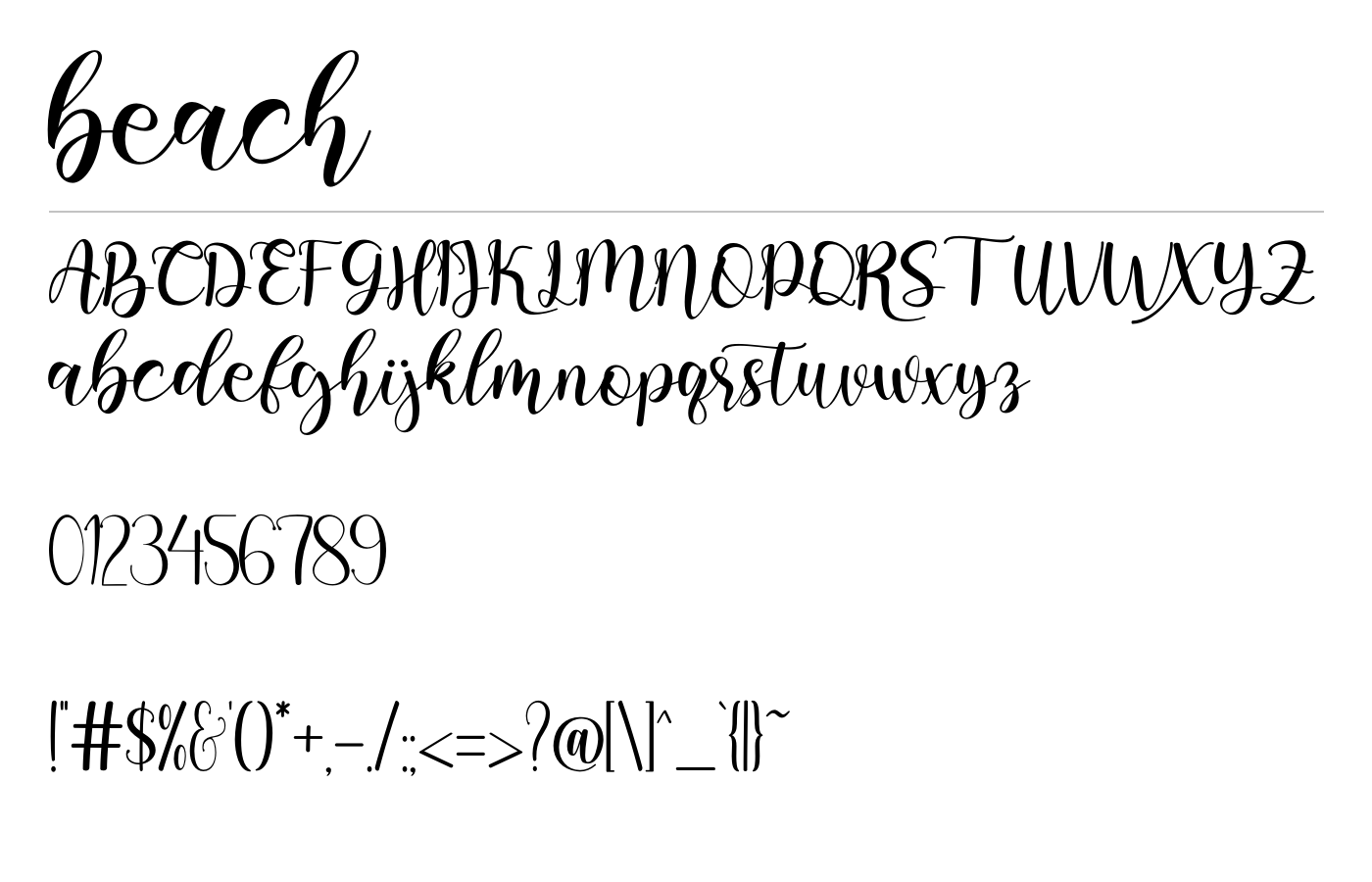
Beach Font is a lively and elegant script typeface with graceful, flowing strokes and a casual yet sophisticated feel. Its smooth, brush-like curves and balanced weight make it perfect for inviting, friendly designs like branding, invitations, and social media, bringing warmth and personality to any project. This font’s stylish charm works especially well for lifestyle and creative contexts where a personal touch is desired.
beach Font